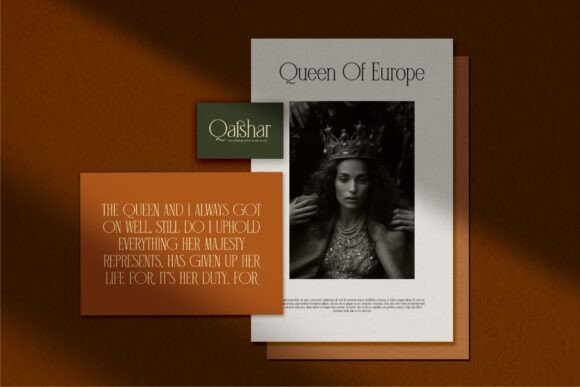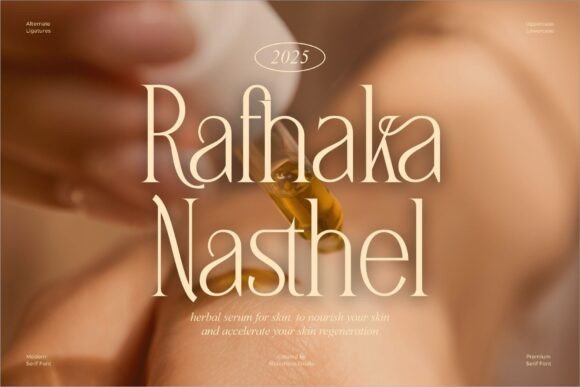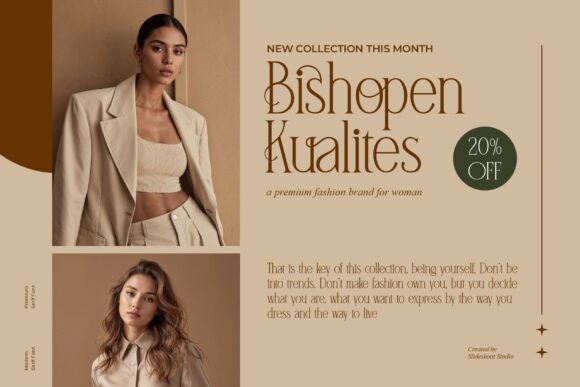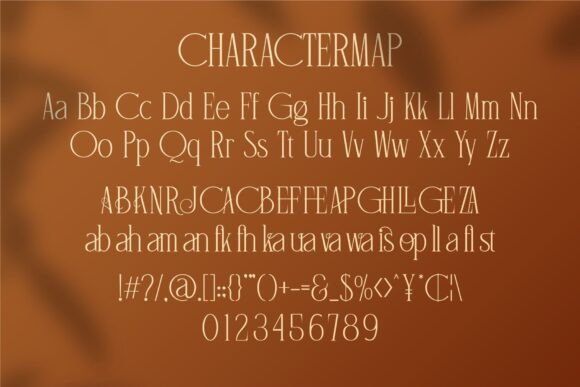
Introducing Ghillanza Font: Elevate Your Designs with Modern Elegance
In the world of typography, a well-crafted font can make all the difference in elevating your design to the next level. For designers and crafters seeking a modern and sophisticated serif font, look no further than Ghillanza. This stunning font is perfect for a wide range of applications, from invitation card designs and company logos to movie titles, business cards, book titles, and brand names.
What is Ghillanza Font?
Ghillanza is a thoughtfully designed serif font that exudes modern elegance. Its unique blend of classic and contemporary elements makes it an ideal choice for designers looking to add a touch of sophistication to their work. With its clean lines, precise curves, and balanced proportions, Ghillanza is sure to impress.
Key Features of Ghillanza Font
• Modern Theme: Ghillanza boasts a distinctly modern aesthetic, making it perfect for designs that require a fresh and contemporary look.
• Serif Elegance: The font’s serif details add a touch of classic sophistication, ensuring that your designs stand out with refinement and poise.
• Versatility: Ghillanza is incredibly versatile, suitable for a wide range of applications, from print materials like business cards and book titles to digital platforms like movie titles and brand names.
• Legibility: The font’s exceptional legibility ensures that your message is conveyed clearly, whether used in headings, body text, or captions.
Use Cases for Ghillanza Font
Ghillanza’s adaptability makes it an excellent choice for various design projects. Here are some inspiring use cases:
• Invitation Card Designs: Add a touch of luxury to your wedding invitations, event invites, or party cards with Ghillanza’s elegant serif details.
• Company Logos: Establish your brand’s identity with a sophisticated logo that leverages Ghillanza’s modern charm.
• Movie Titles and Names: Give your film or video project a professional edge with Ghillanza’s cinematic appeal.
• Business Cards: Stand out in the professional sphere with business cards that feature Ghillanza’s refined typography.
• Book Titles and Brand Names: Elevate your book covers, e-book designs, or brand identity with Ghillanza’s distinctive style.
Tips for Using Ghillanza Font Effectively
To maximize the impact of Ghillanza in your designs, consider the following tips:
• Pair with Complementary Fonts: Combine Ghillanza with sans-serif fonts for a striking contrast or with script fonts for added elegance.
• Experiment with Colors: Ghillanza looks stunning in bold colors, metallic finishes, or classic black and white.
• Play with Sizes: Use Ghillanza in various sizes to create visual hierarchy and emphasize key information.
Ghillanza Font is a game-changer for designers and crafters seeking a modern serif font that exudes elegance and sophistication. Its versatility, legibility, and stunning design make it an excellent choice for a wide range of applications. Whether you’re working on a wedding invitation, company logo, movie title, or book cover, Ghillanza is sure to elevate your design to new heights. Discover the possibilities with Ghillanza Font today and bring your creative vision to life!